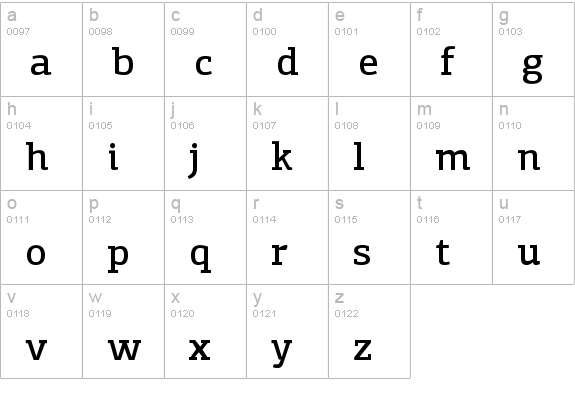
PFCentroSlabPro-Medium is a balanced, medium-weight variant in the PFCentroSlabPro typeface family \xE2\x80\x94 well suited to sub-headlines, navigation, and balanced editorial work.
PFCentroSlabPro-Medium is a versatile and modern font that strikes the perfect balance between professionalism and creativity. Its medium weight conveys a sense of stability and authority, making it ideal for a wide range of design projects. The sturdy slab serif style of this font exudes confidence and sophistication, while its clean lines ensure readability across various platforms. What sets PFCentroSlabPro-Medium apart is that it is available for free download at FontsMarket.com. This means that you can easily access this high-quality font without any cost, making it a valuable addition to your font library. Whether you're working on branding materials, editorial designs, or web projects, PFCentroSlabPro-Medium is sure to elevate your work with its timeless appeal and modern aesthetic. Don't miss out on the opportunity to enhance your designs with PFCentroSlabPro-Medium - download it for free today at FontsMarket.com and discover the endless possibilities this font has to offer.